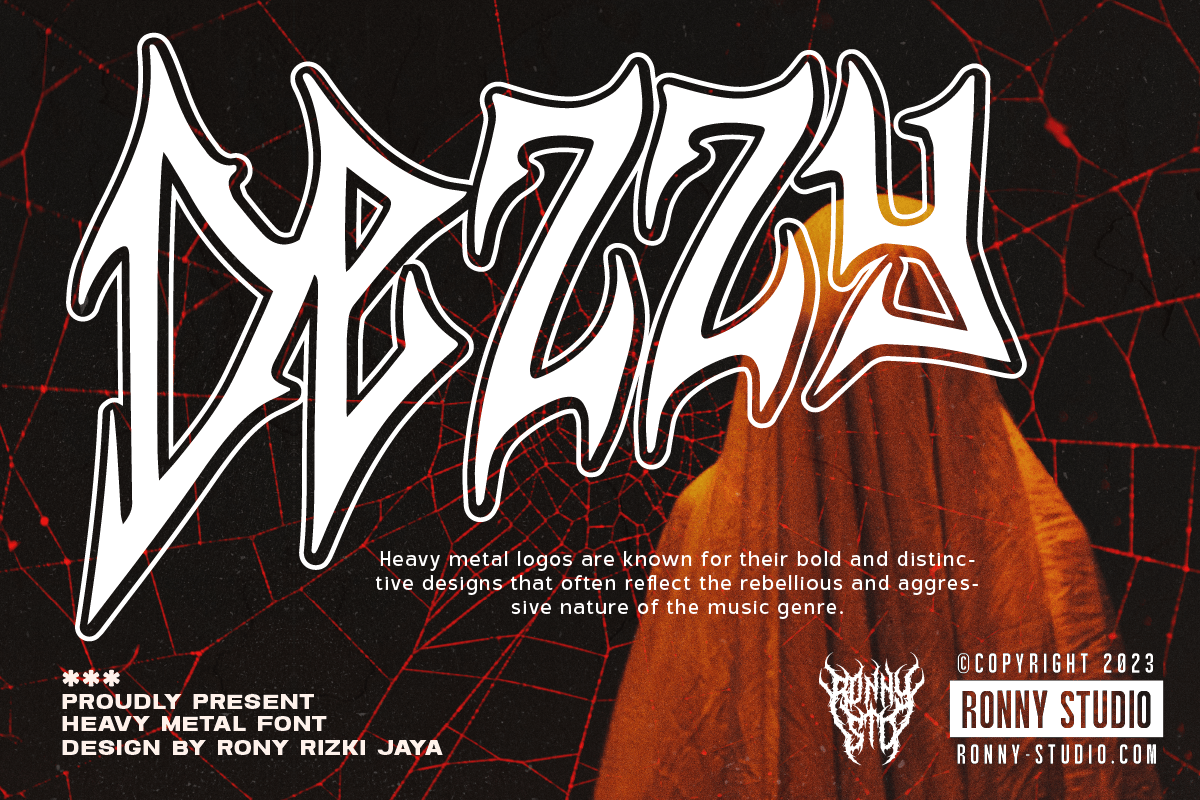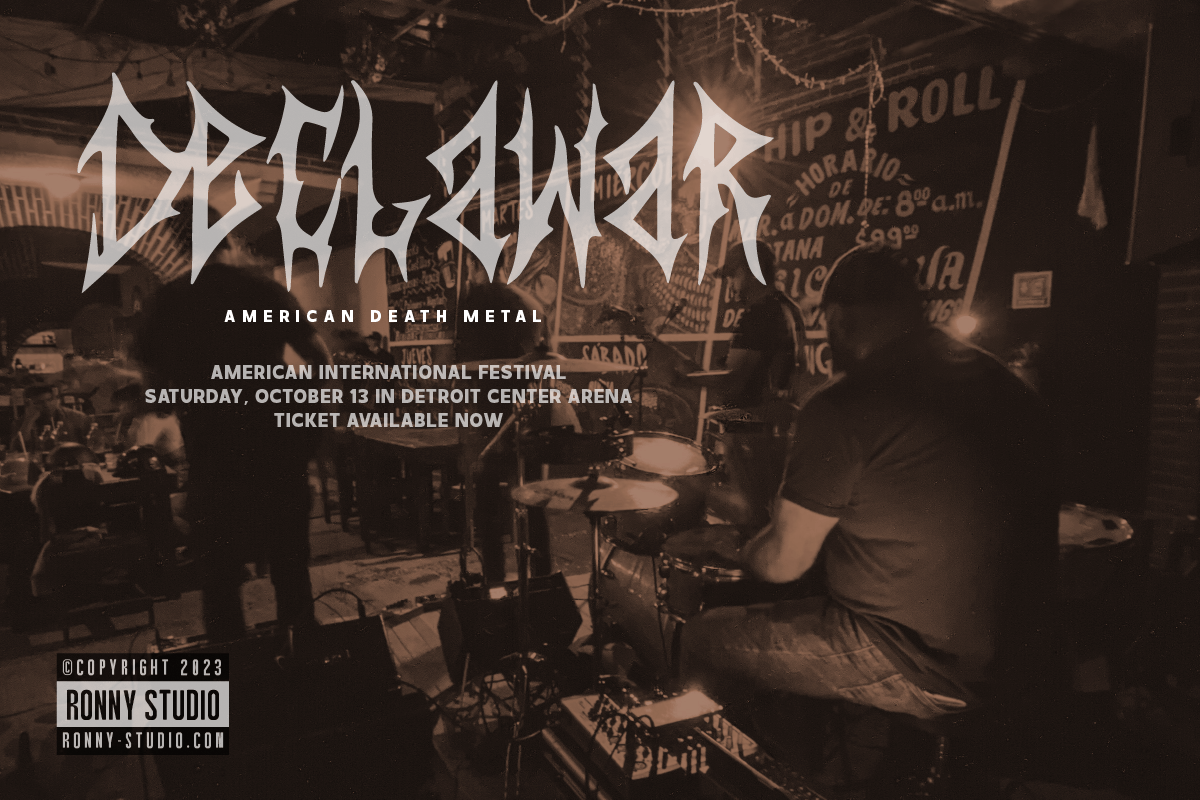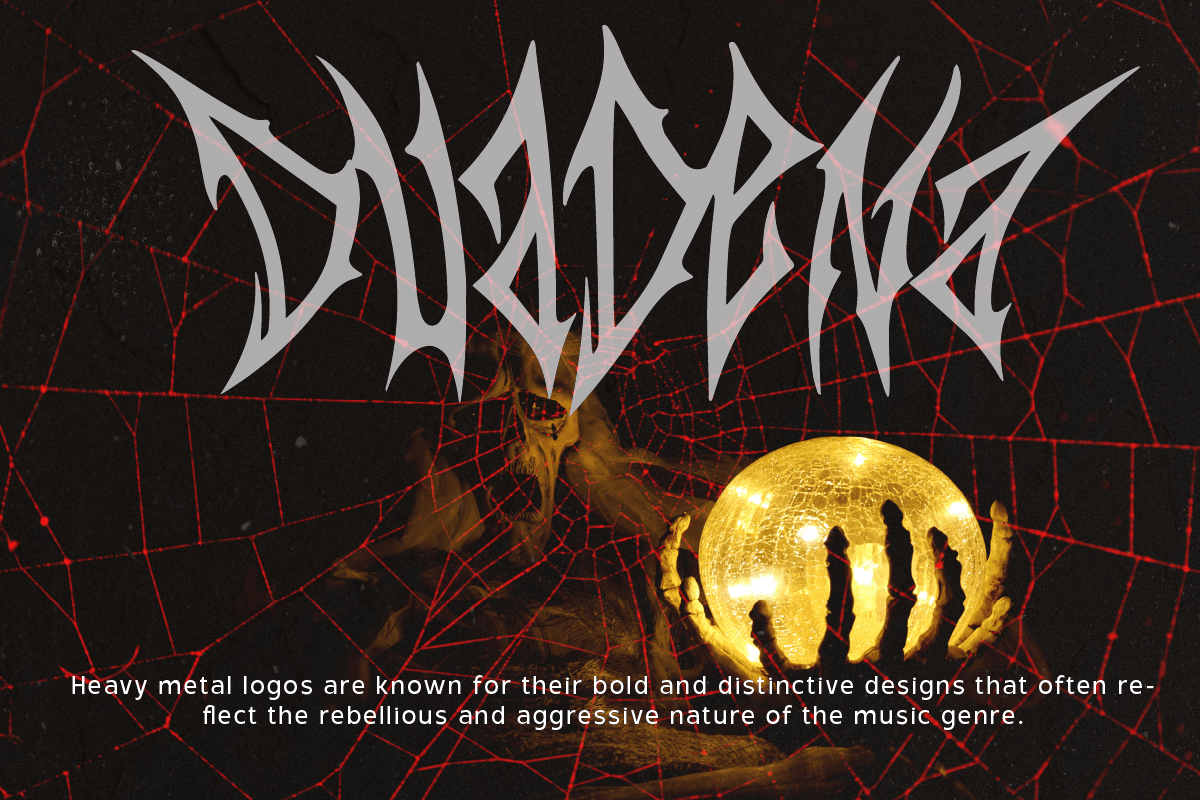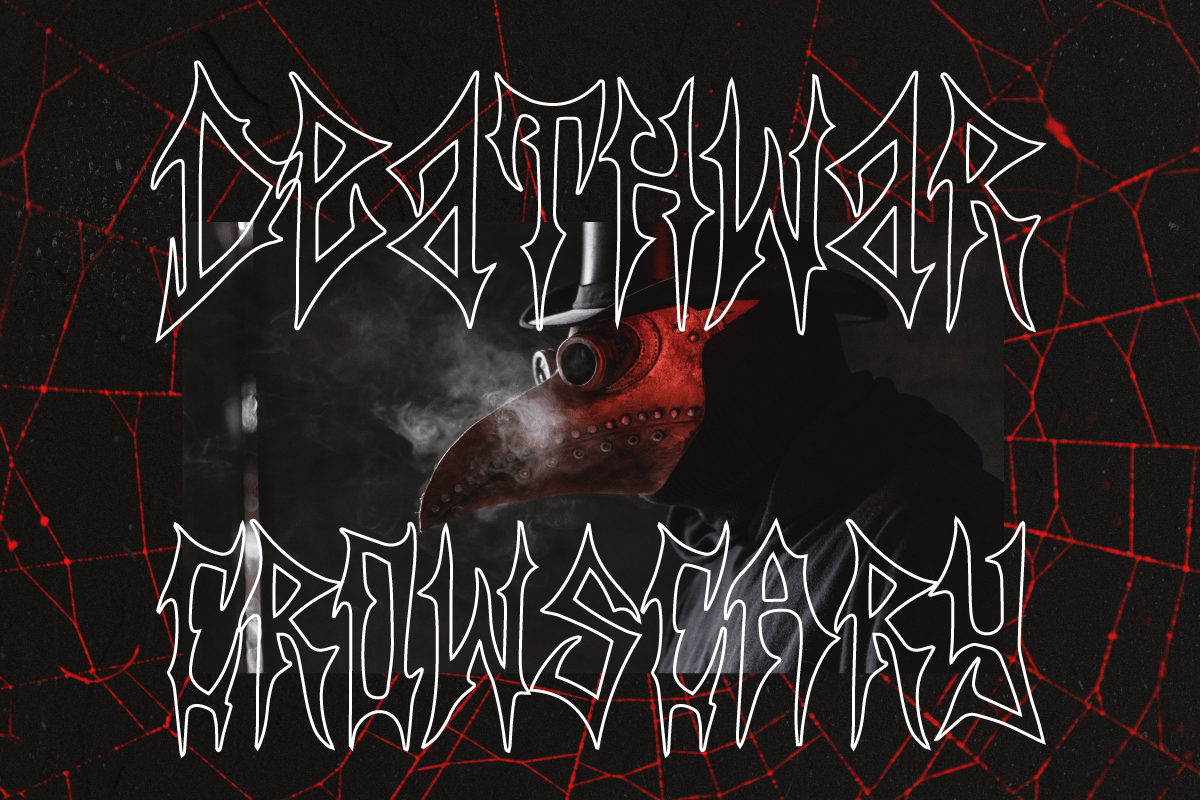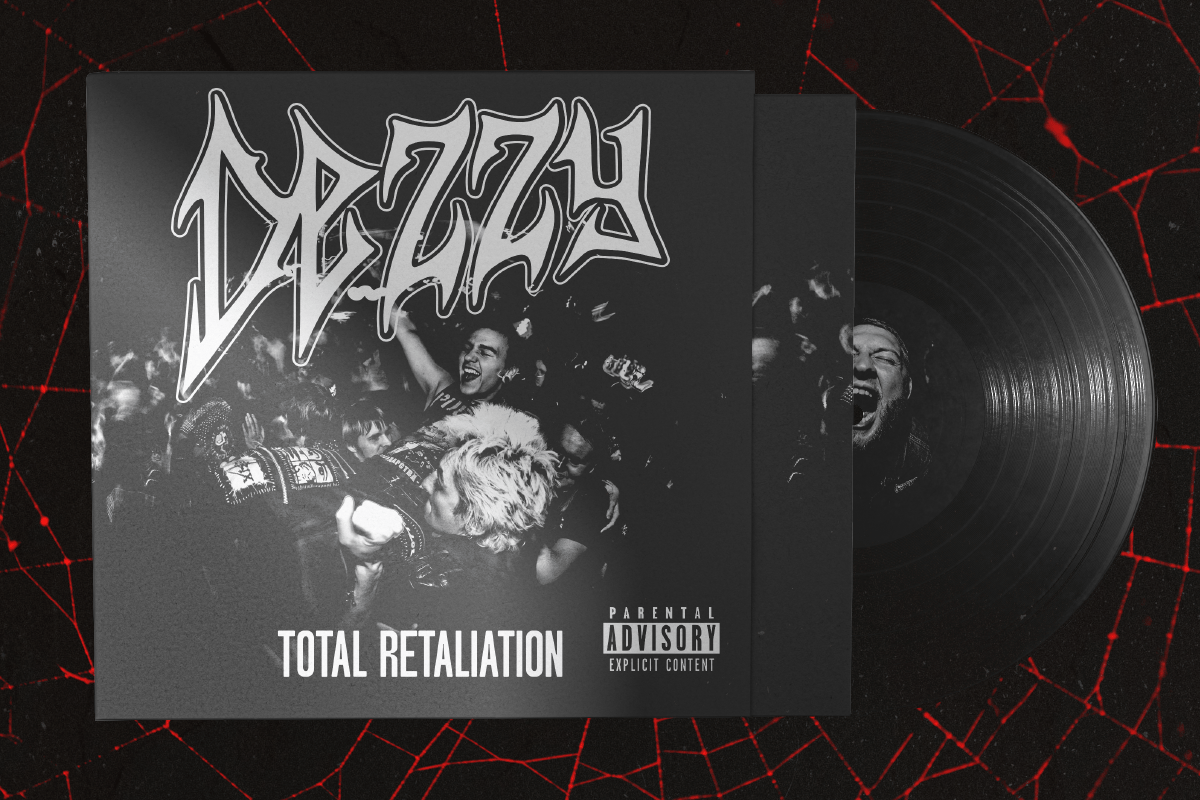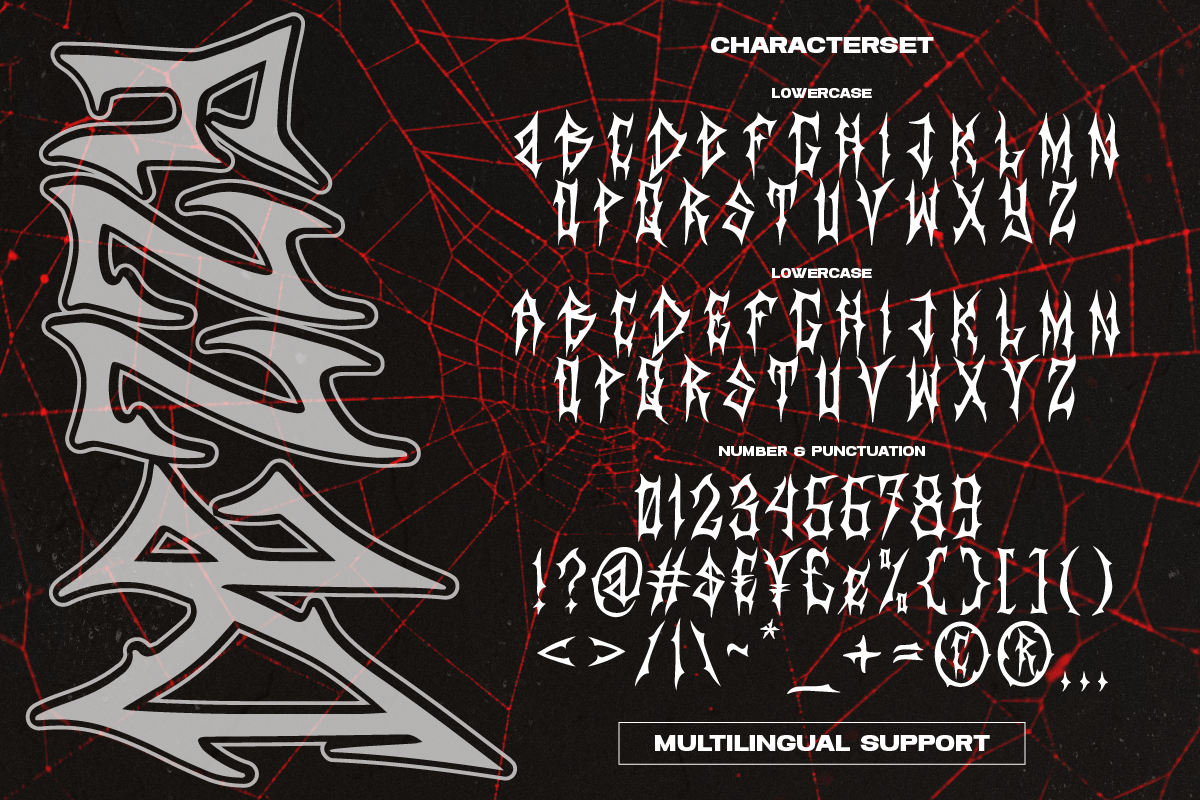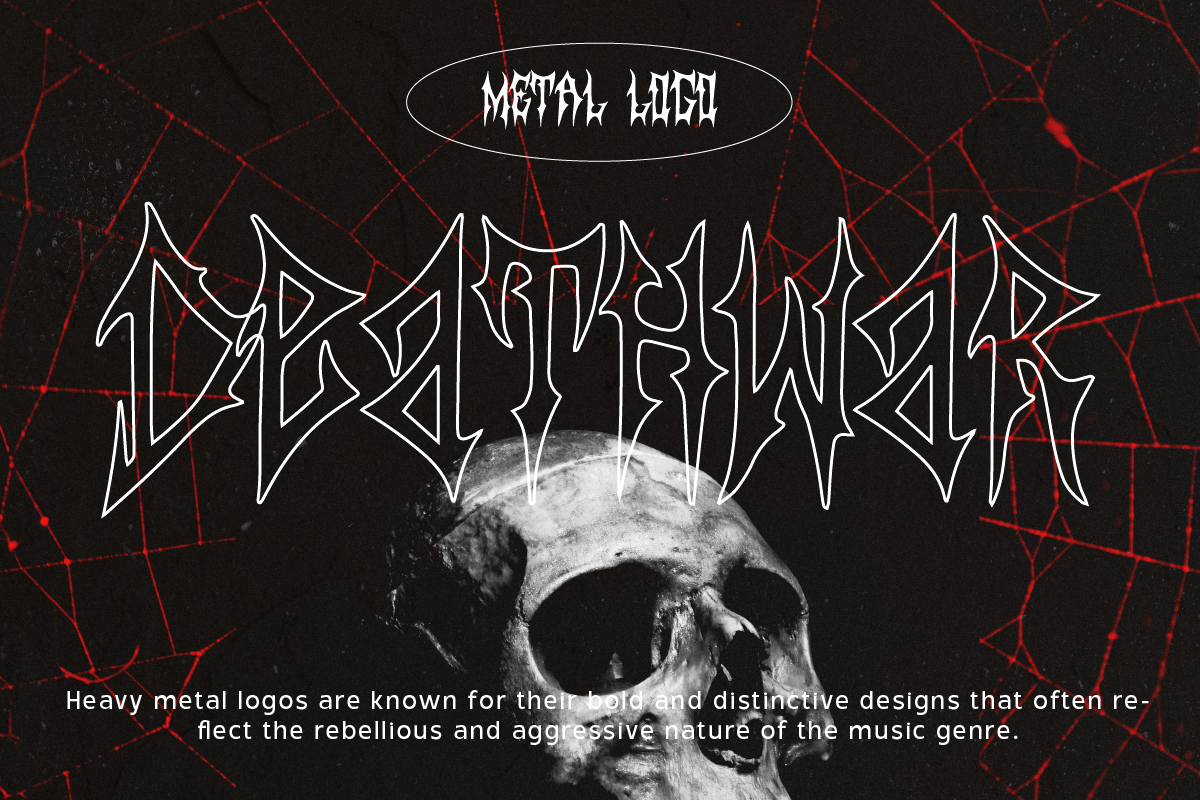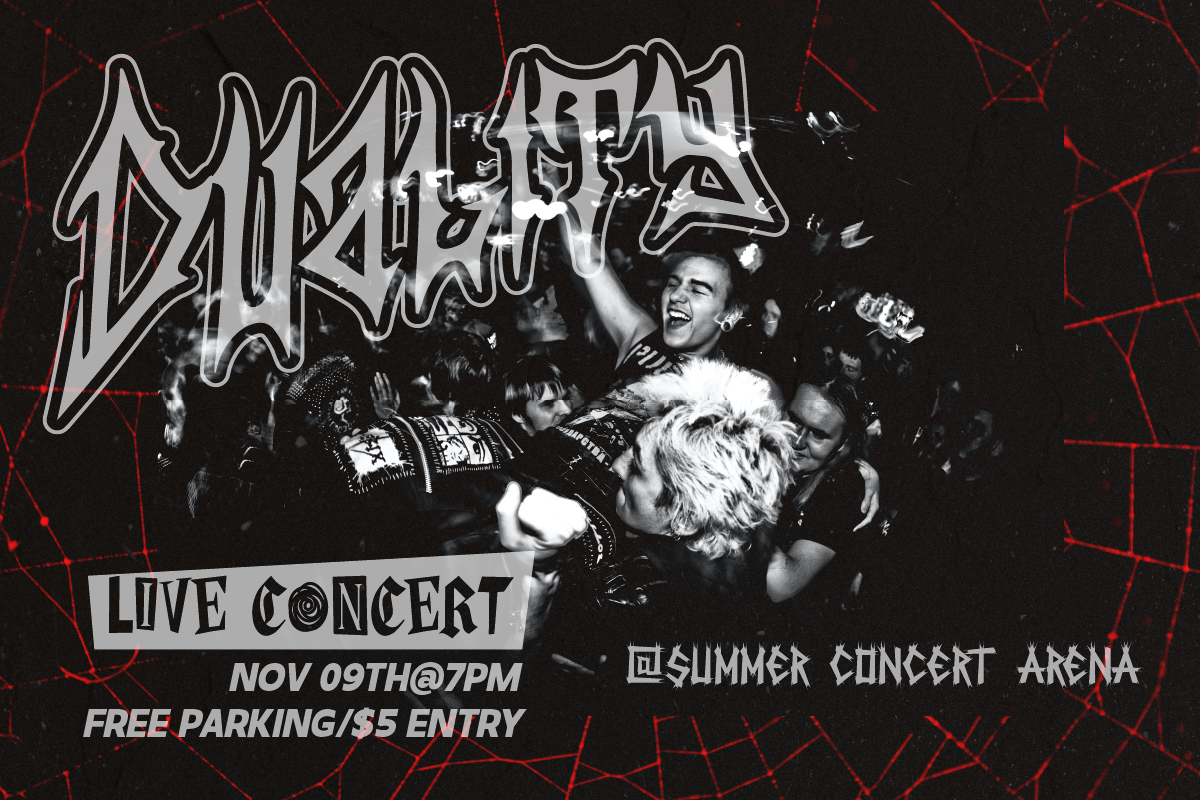
Dezzy – Heavy Metal Font
Dezzy Font is a cool alternative for you to create Underground band logos or anything else easily. Using effects in the font will liven up the font and it will look cooler and fiercer. This font has a strong, aggressive and bold look, reflecting the aesthetics of the metal music genre itself.